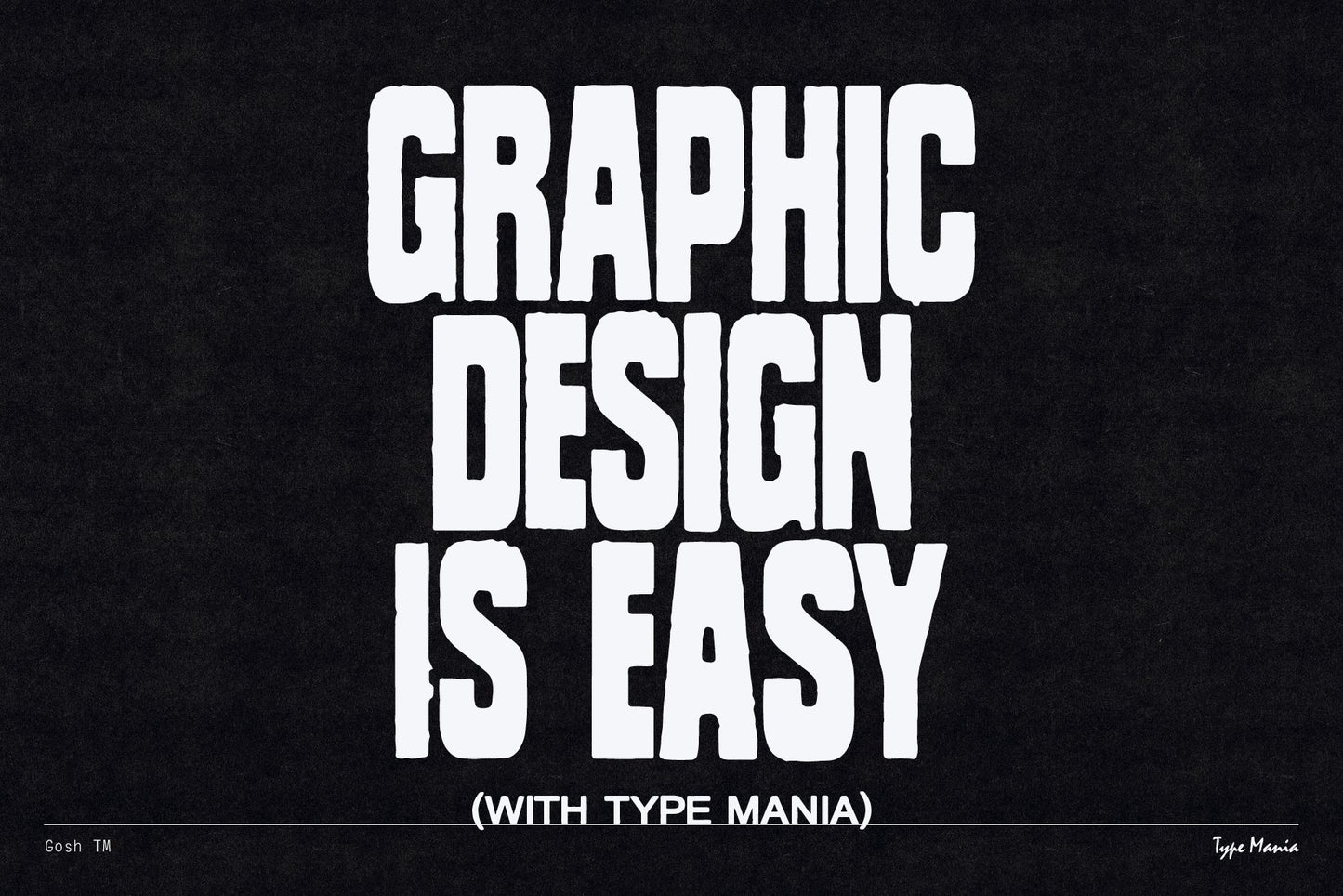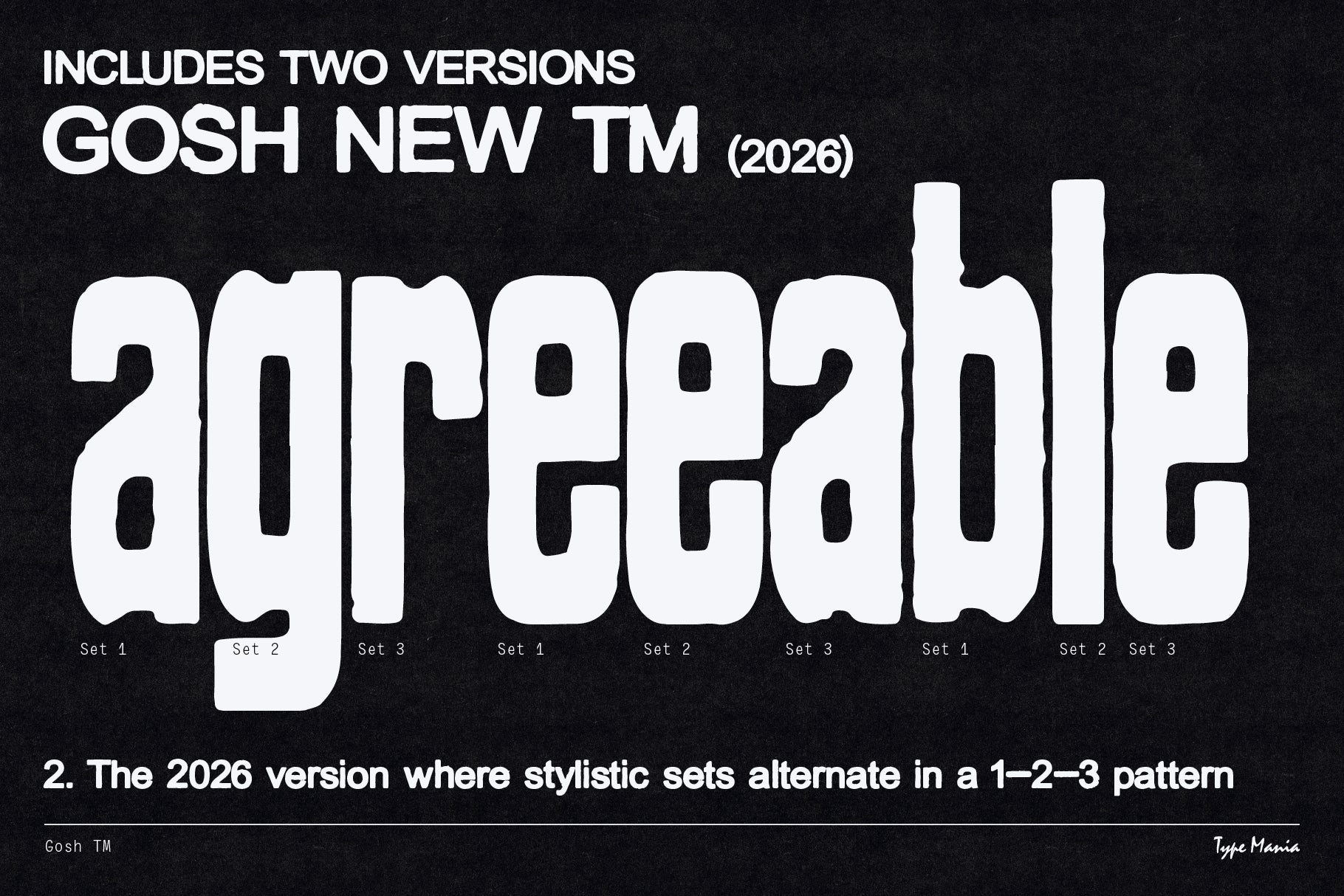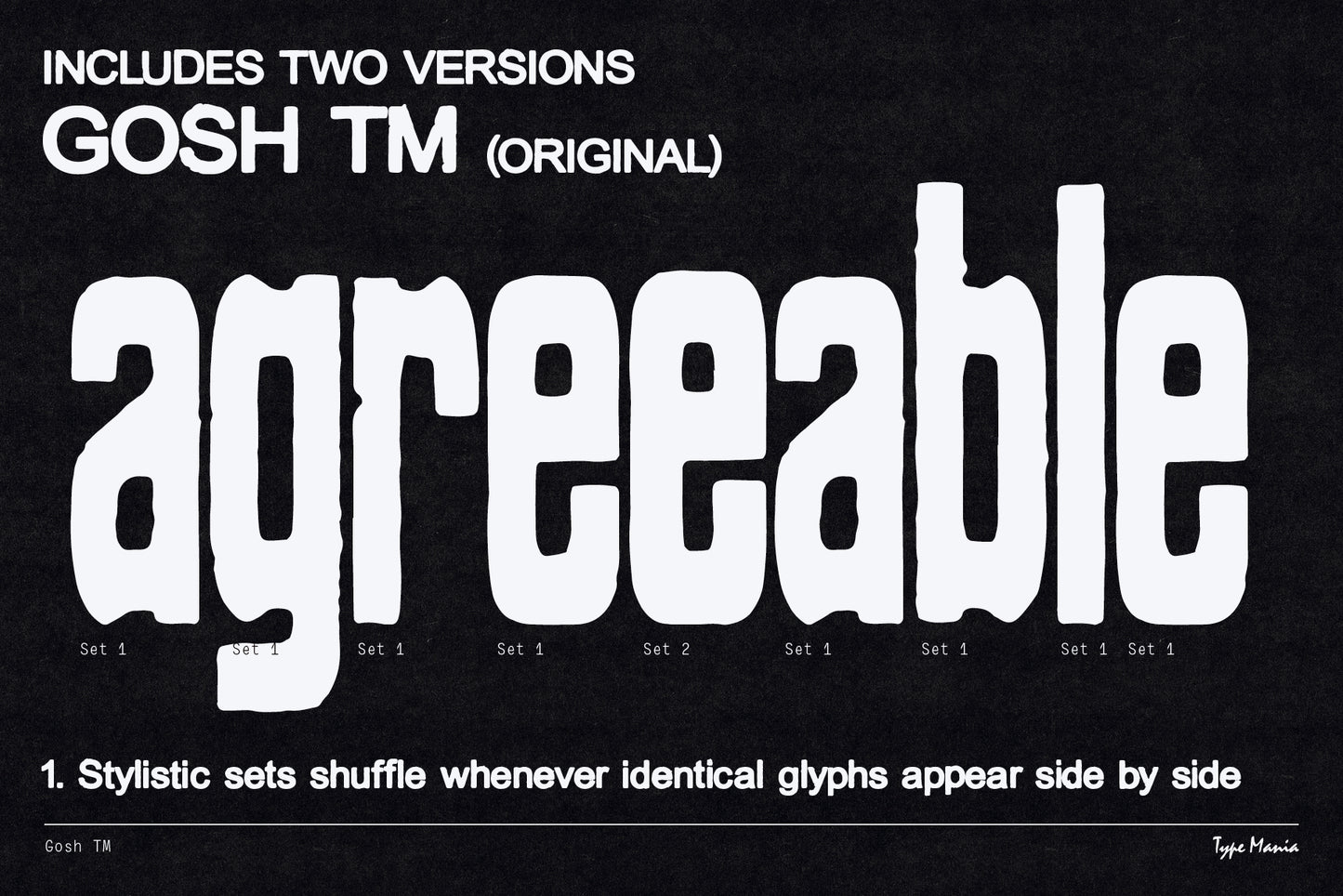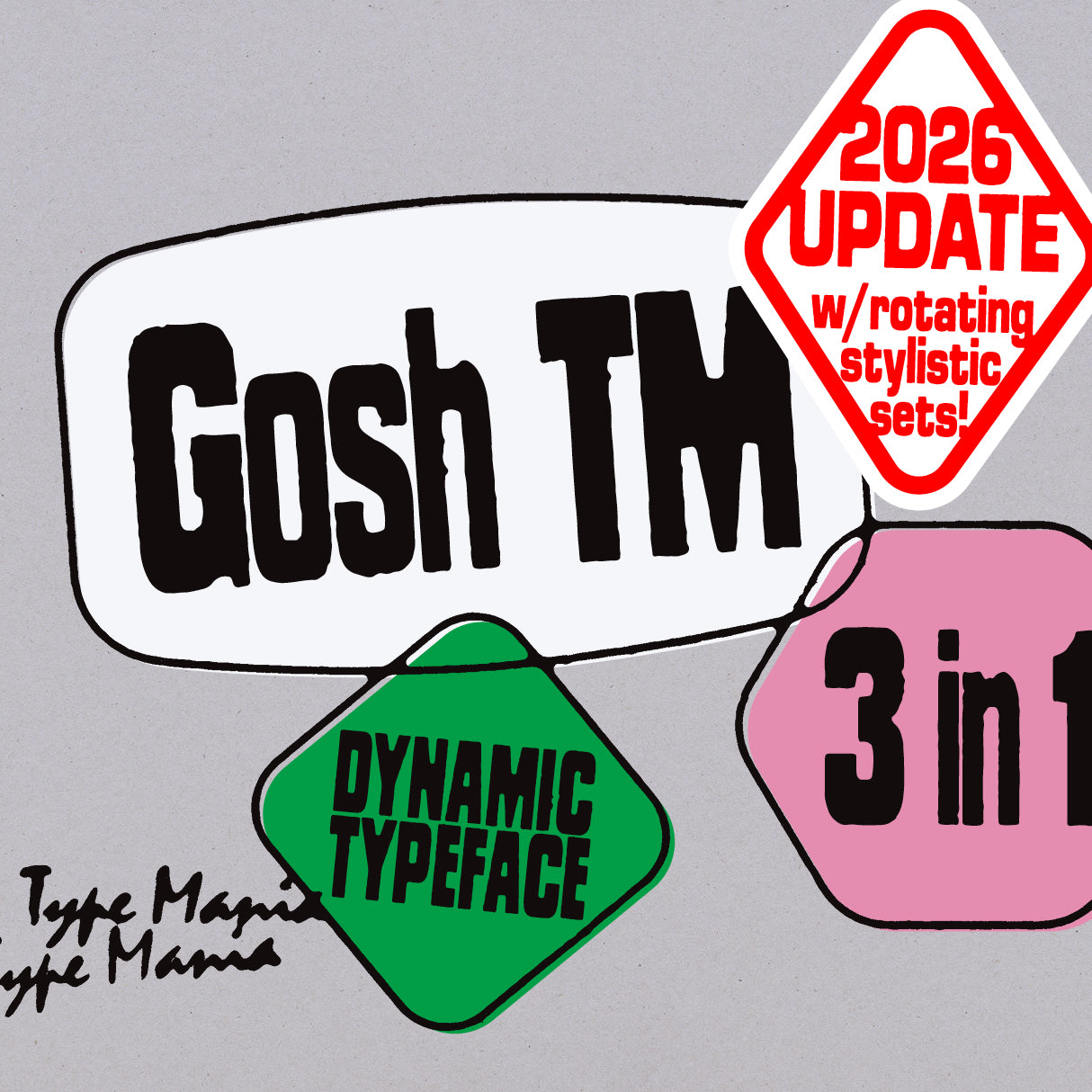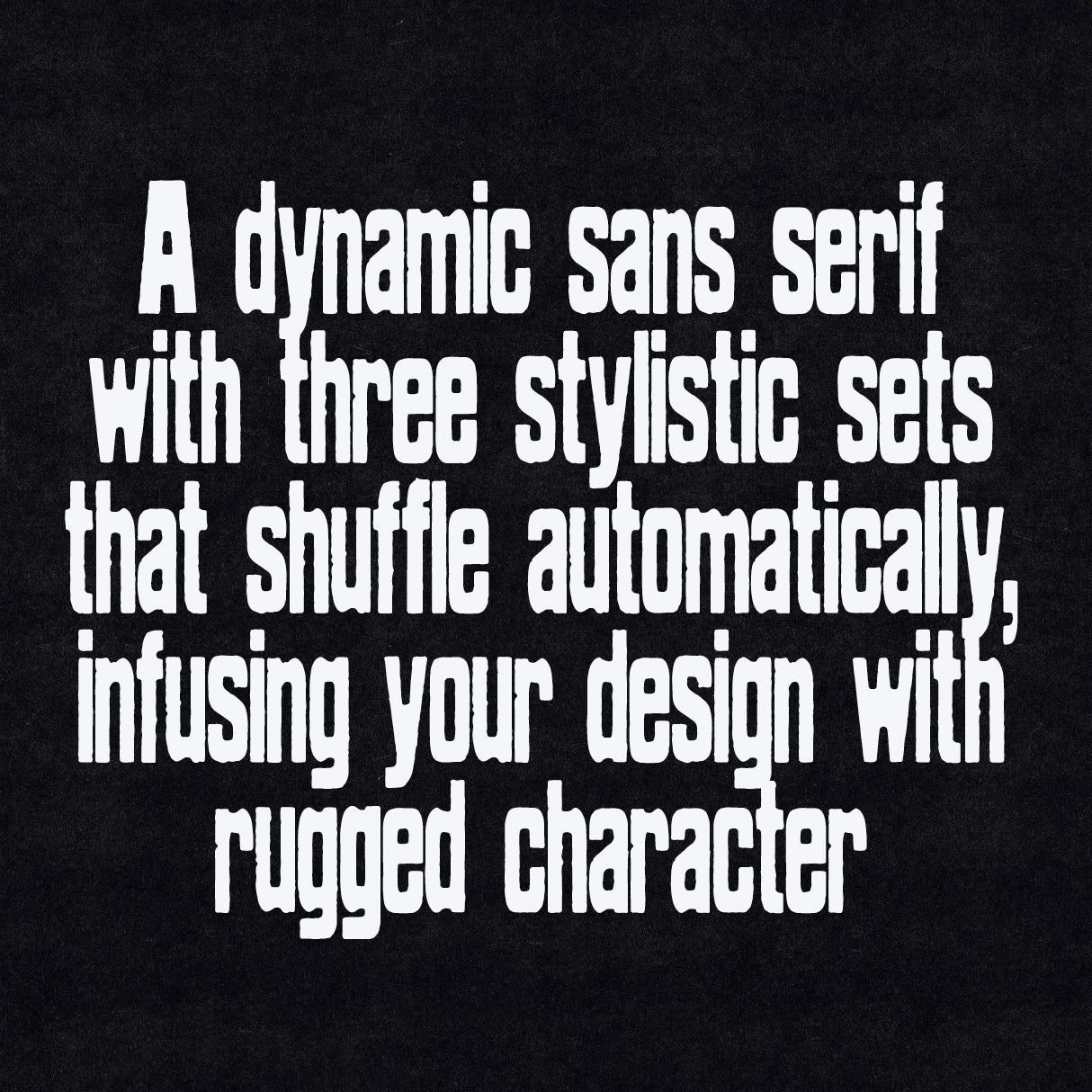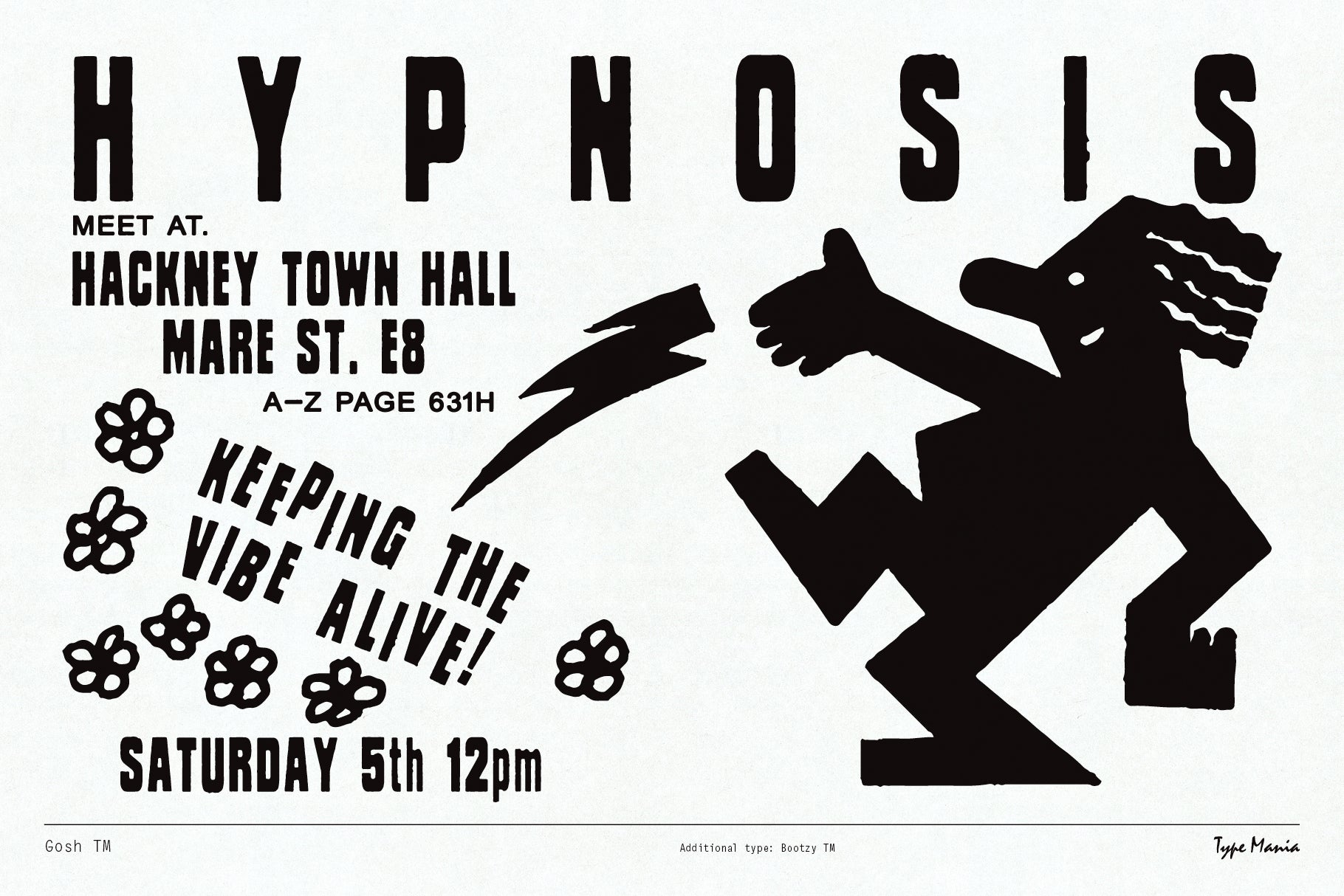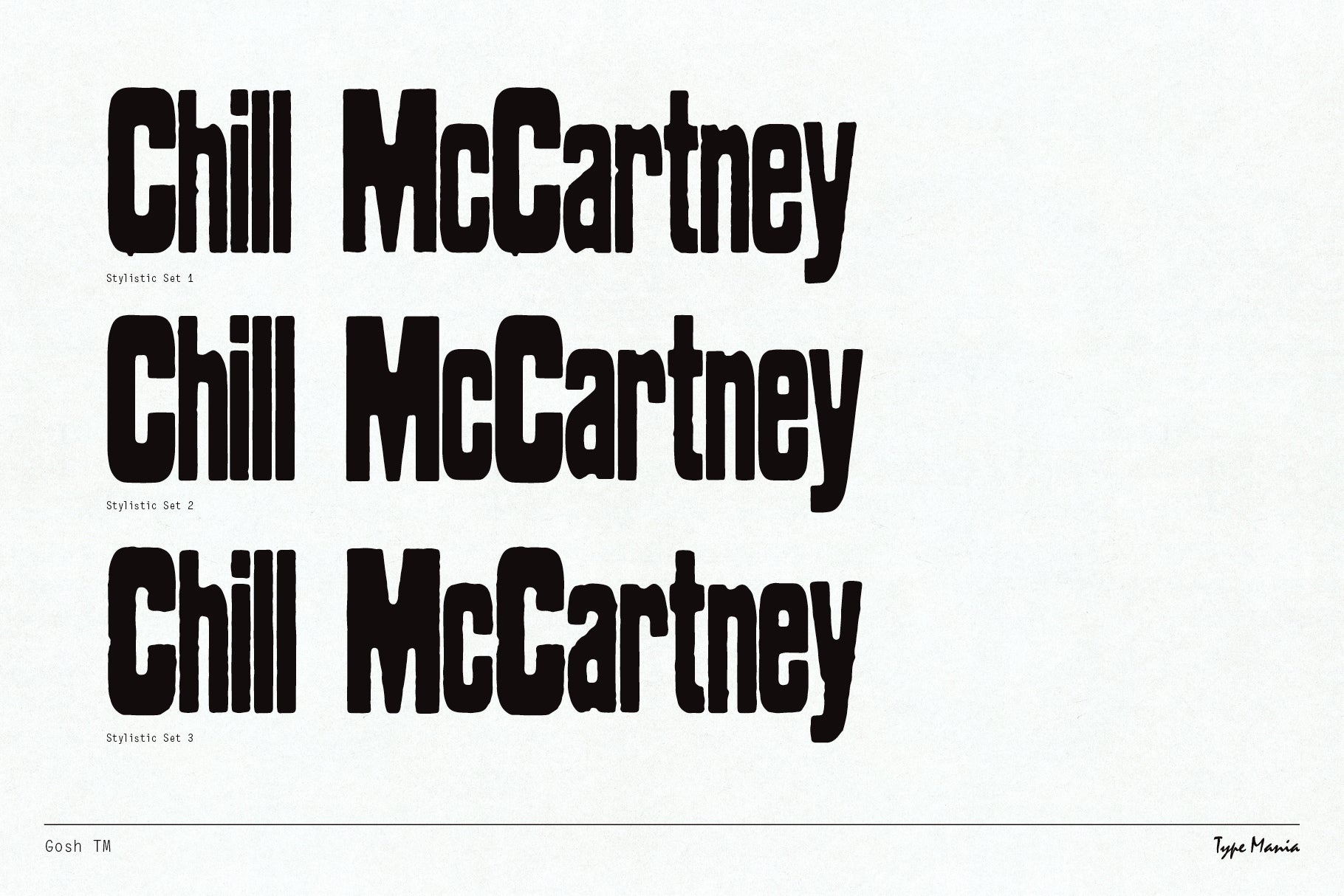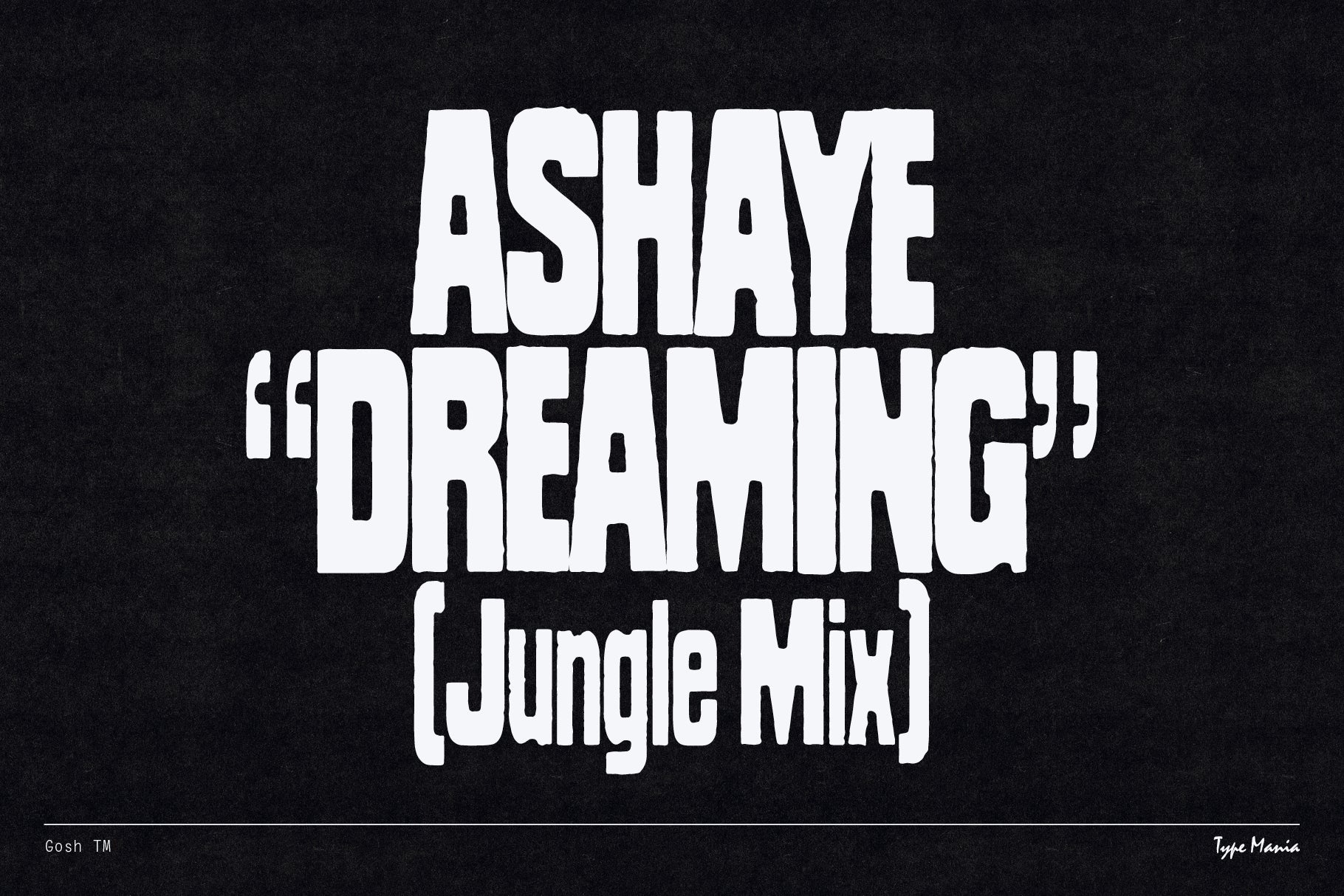
Gosh TM
Introducing Gosh TM. A soulful typeface merging raw beauty with cutting-edge design features. Not only does this display font command attention visually, but it also offers 3 interchangeable stylistic sets, making the designers job that much easier.
- 3 stylistic sets
- Includes two versions of the font: 1. Stylistic sets shuffle whenever identical glyphs appear side by side, 2. A new version where stylistic sets alternate in a 1–2–3 pattern, when the Contextual Alternates is turned on.